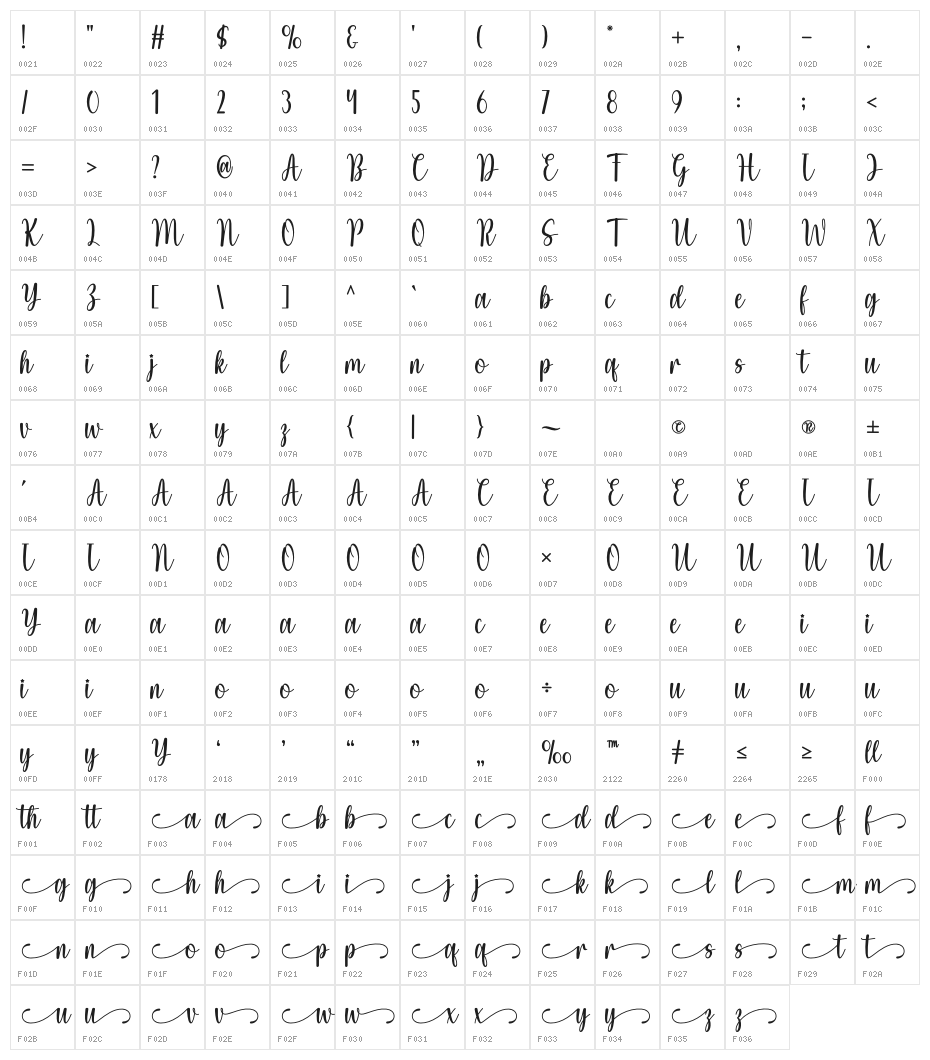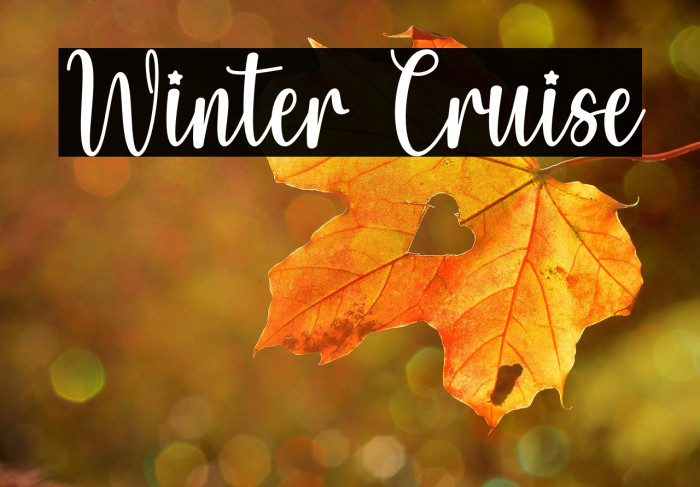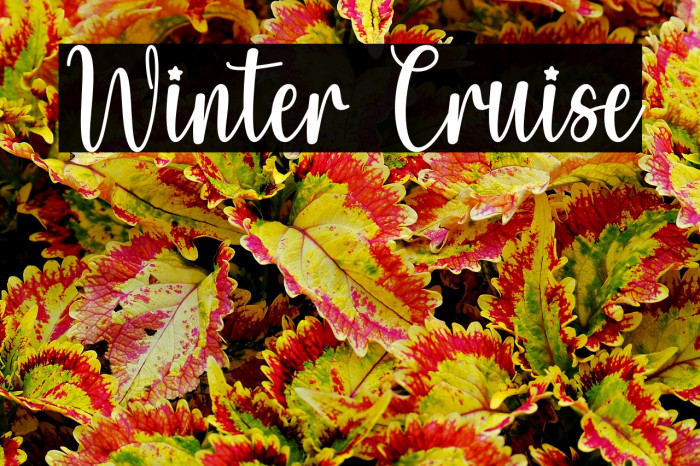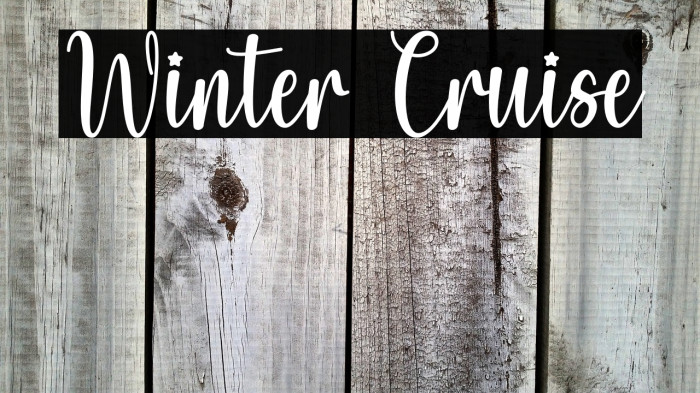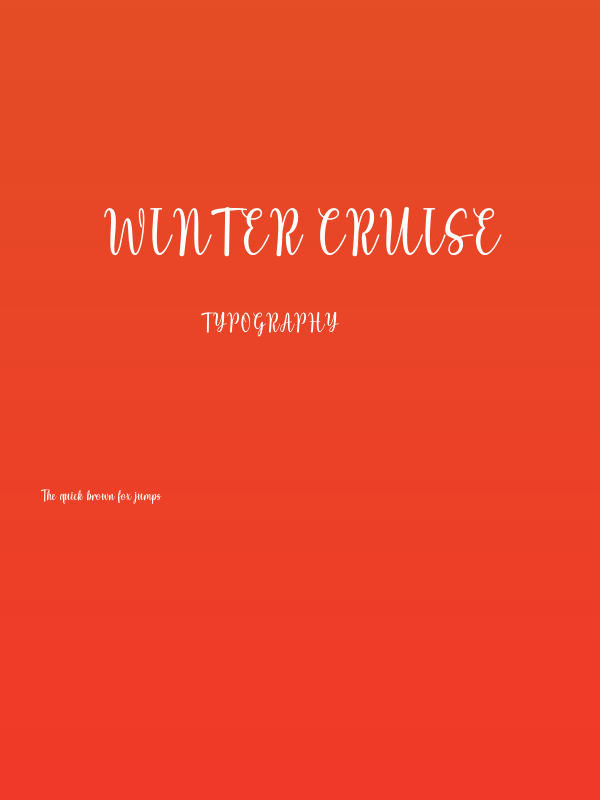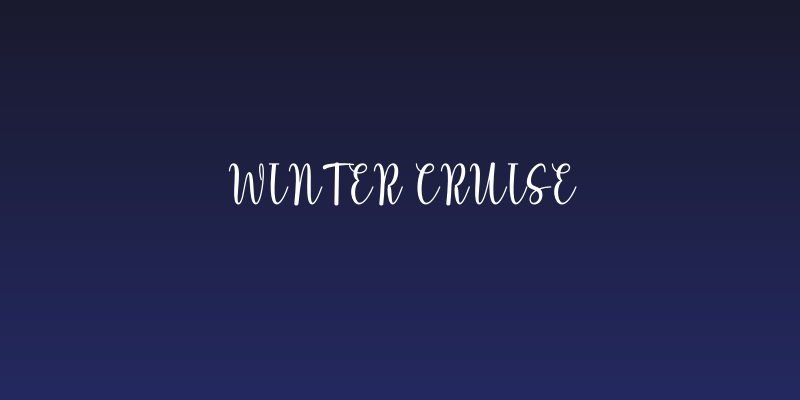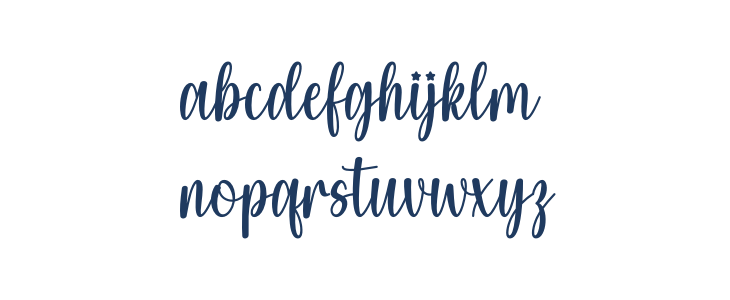
Winter Cruise Font
Winter Cruise Description
This font features a playful and elegant script style with a handwritten appearance. The uppercase letters are tall and slender, with a slight slant that adds a dynamic flow to the text. The lowercase letters are more rounded and maintain a consistent baseline, enhancing readability while retaining a casual charm. The numerals are bold and clear, making them stand out effectively. Special characters are designed to match the overall aesthetic, ensuring a cohesive look across all text elements. The font's strokes vary in thickness, providing a medium contrast that adds depth and interest without compromising legibility.